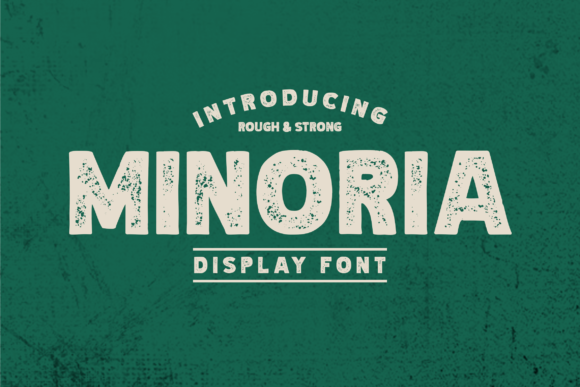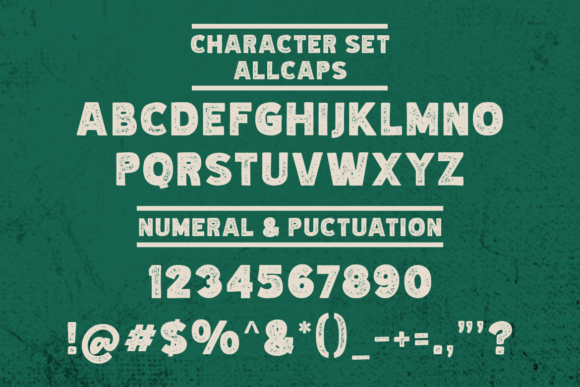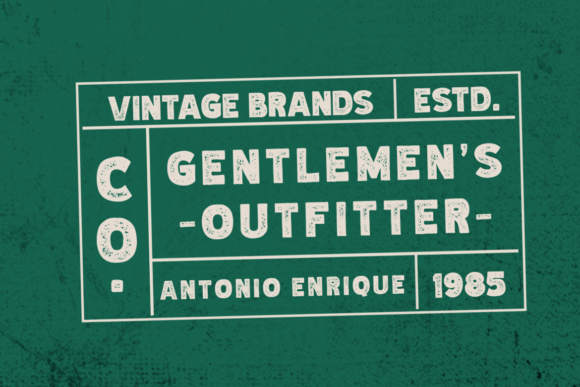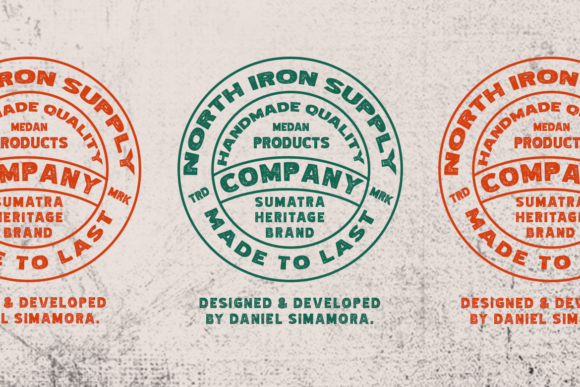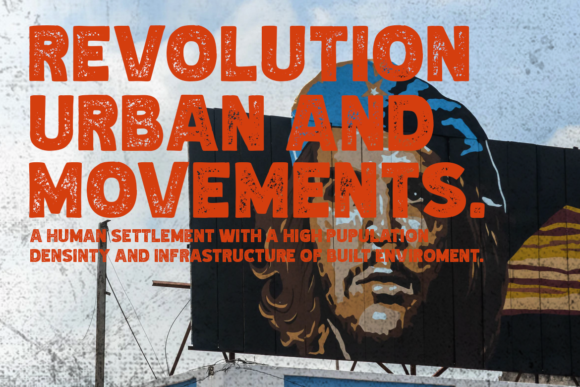
Minoria Font
Minoria is a rough textured, bold and thick lettered display font. No matter the topic, this font will be an incredibly asset to your fonts’ library, as it has the potential to elevate any creation.